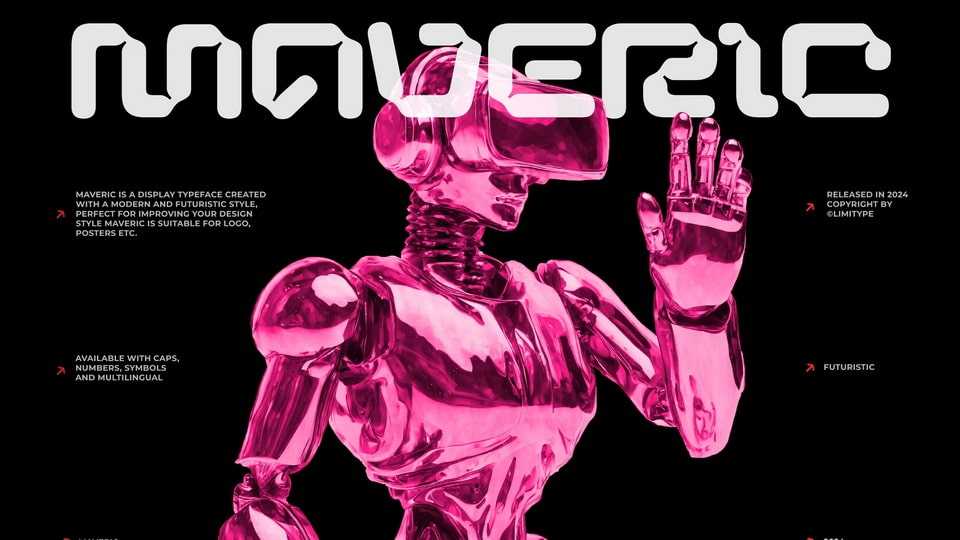
Download Maveric font, a display typeface to transform your designs into a journey through time. Elevate your projects with the perfect blend of innovation and style.